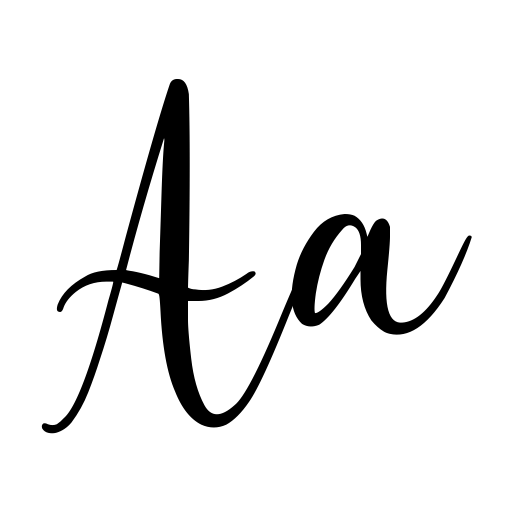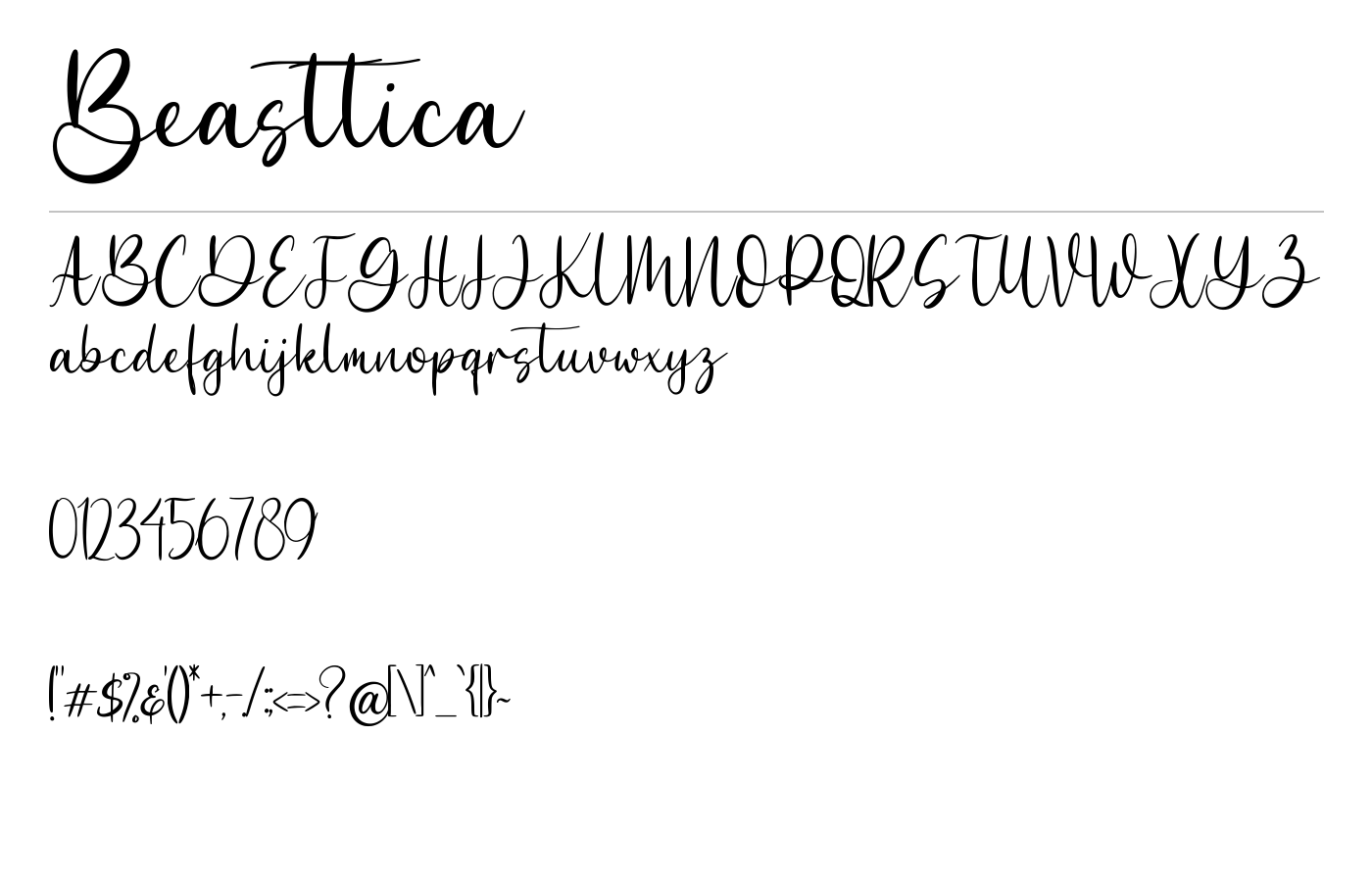
Beasttica is a delicate, script-style font characterized by its elegant, flowing letterforms and medium contrast strokes. With its tall x-height and slender, handwritten look, it conveys a refined and modern personality perfect for invitations, branding, and fashion-related projects. This font’s graceful style makes it ideal for adding a personal, sophisticated touch to logos, headlines, and decorative text.
Beasttica Font